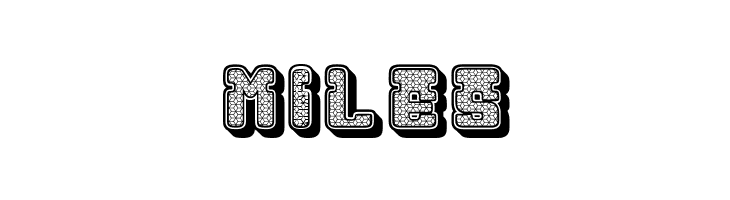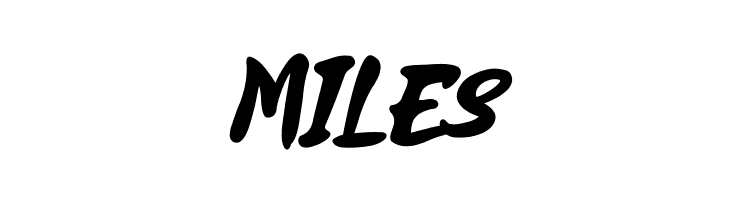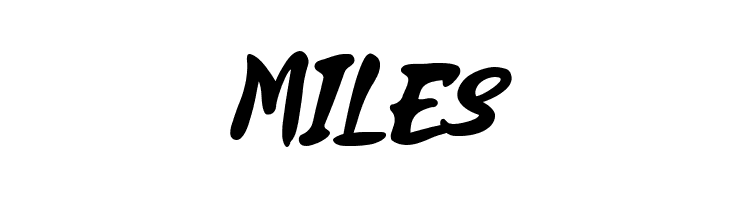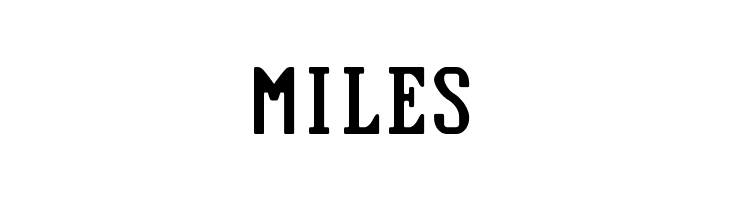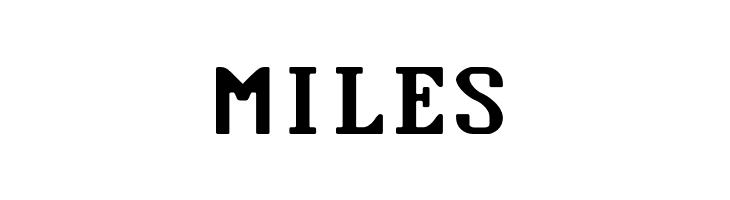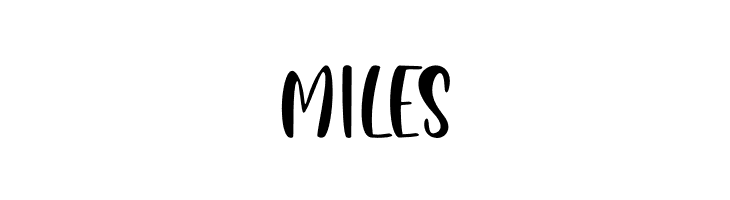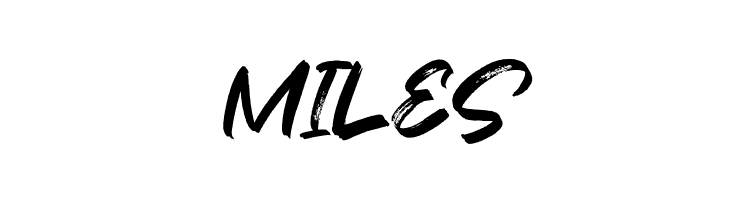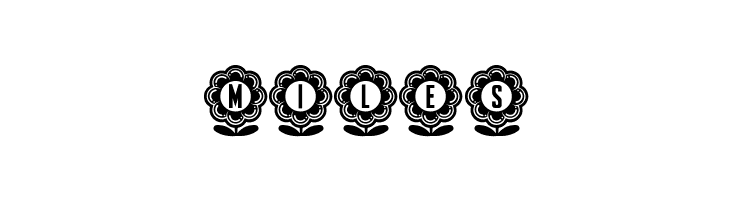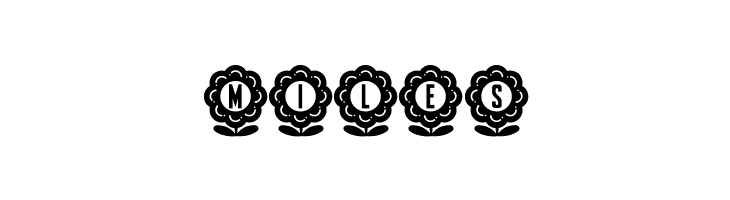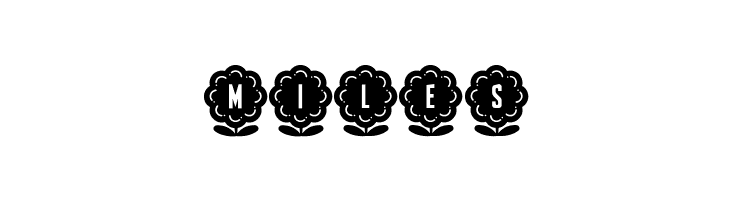
A bold, energetic brush script with a hand-painted look.
A bold, brush script font with dynamic, hand-painted strokes.
A stylish, handwritten script font with elegant, flowing lines.
A bold, dynamic script font with a handwritten style.
A bold, handwritten font with a playful and dynamic style.
A bold, handwritten font with playful and energetic characteristics.
A bold, playful script font with a dynamic and informal style.
A flowing, elegant script font with high contrast and a modern, artistic style.
A bold, structured font with a modern, geometric style.
A bold, monospaced font with a vintage computer aesthetic.
A bold, modern font with strong vertical lines and balanced proportions.
A bold, monospaced font with a mechanical, retro style.
A bold, graffiti-inspired font with dynamic strokes and an urban aesthetic.
A bold, distressed font with a vintage, textured appearance.
A bold, decorative font with floral accents on each character.
A cursive, elegant font with a handwritten style.
A flowing, handwritten font with elegant, continuous strokes.
A playful and energetic script font with smooth, flowing curves.
A playful and elegant script font with bold, flowing strokes and interconnected letters.
A bold, slanted script font with smooth curves and dynamic energy.
A bold, modern cursive font with a clean, uniform appearance.
Ornate divider lines and bold, boxed question marks.
An elegant and sophisticated font with intricate flourishes and monogram style.
A bold, playful font with a textured, patterned interior and thick outlines.
A flowing, cursive handwritten font with smooth, connected strokes.
A decorative font with characters encased in stylized flower shapes, offering a whimsical and elegant appearance.
A decorative font with characters inside flower-shaped outlines.
A decorative font with characters enclosed in floral designs, offering a whimsical and artistic style.
A decorative font with characters encased in stylized flower shapes.
A decorative font with characters encased in floral designs, ideal for whimsical projects.
A playful, floral-themed decorative font with bold, rounded characters.
A bold, expressive script font with fluid, brush-like strokes.
Elegant, flowing script font with a handwritten style.